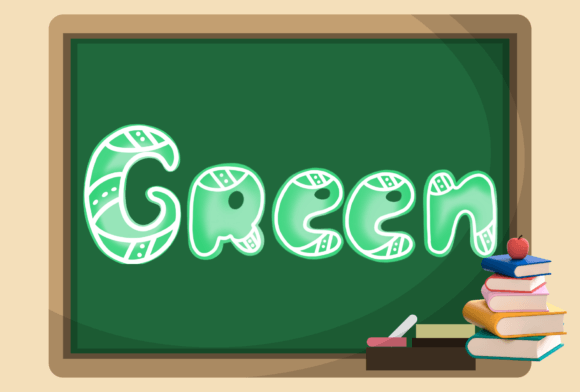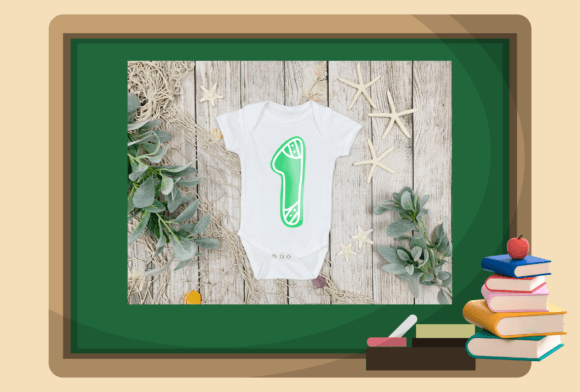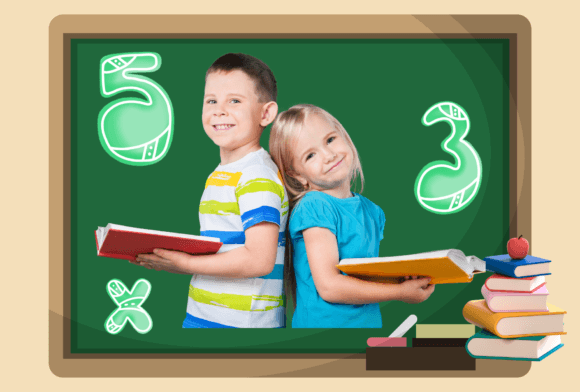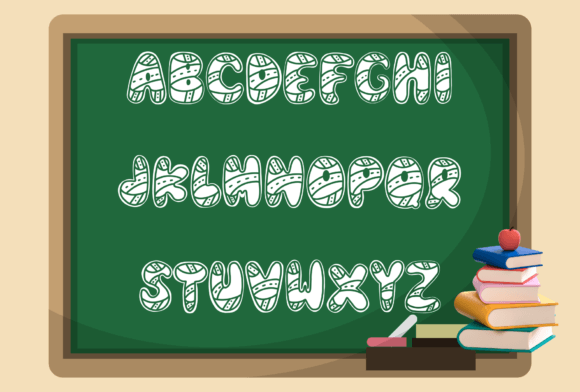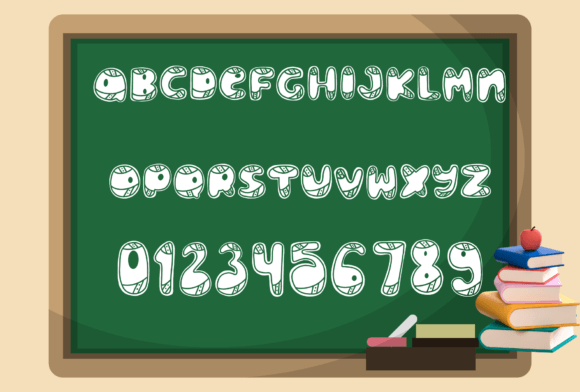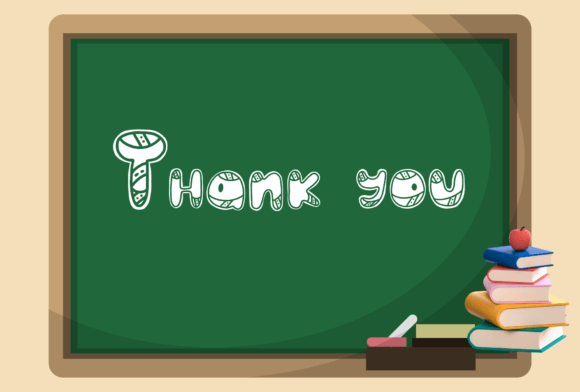
Baby to School Font: A Sweet and Decorative Addition to Your Designs
Are you a designer or crafter looking for a font that will make your creations stand out? Look no further than the Baby to School font. This sweet and decorative font is perfect for a variety of projects, from baby shower invitations to school-themed crafts. In this article, we’ll take a closer look at the Baby to School font and explore its features, uses, and benefits.
What is Baby to School Font?
Baby to School is a sweet decorative font that is simple yet has a strong visual effect. Its unique design makes it perfect for creating eye-catching headings, titles, and text for a variety of projects. The font is highly versatile and can be used for both personal and commercial projects.
Key Features of Baby to School Font
- Unique Design: The Baby to School font has a unique and playful design that sets it apart from other fonts.
- Simple yet Effective: Despite its simplicity, the font has a strong visual effect that will make your creations stand out.
- Highly Versatile: The font can be used for a variety of projects, from baby shower invitations to school-themed crafts.
- Easy to Read: The font is easy to read, making it perfect for use in titles, headings, and body text.
Uses of Baby to School Font
The Baby to School font is perfect for a variety of projects, including:
- Baby Shower Invitations: Create adorable and eye-catching invitations for baby showers with this font.
- School-Themed Crafts: Use the font to create fun and educational crafts for kids, such as worksheets, posters, and activity sheets.
- Children’s Party Invitations: Create fun and playful invitations for children’s parties with this font.
- DIY Projects: Use the font to add a personal touch to your DIY projects, such as signs, banners, and decorations.
Benefits of Using Baby to School Font
There are several benefits to using the Baby to School font in your designs:
- Instant Visual Impact: The font’s unique design and strong visual effect will instantly make your creations more appealing.
- Highly Versatile: The font can be used for a variety of projects, making it a great addition to your font library.
Tips for Using Baby to School Font
Here are some tips for using the Baby to School font in your designs:
- Use it for Headings and Titles: The font is perfect for use in headings and titles, where its unique design can make a big impact.
- Experiment with Colors: The font looks great in a variety of colors, so don’t be afraid to experiment and find the perfect color for your project.
- Pair it with Other Fonts: The Baby to School font pairs well with other fonts, so try pairing it with a sans-serif font for a fun and playful look.
The Baby to School font is a sweet and decorative font that is perfect for designers and crafters looking to add a personal touch to their creations. Its unique design and strong visual effect make it perfect for a variety of projects, from baby shower invitations to school-themed crafts. With its ease of use, versatility, and affordability, the Baby to School font is a great addition to any font library.